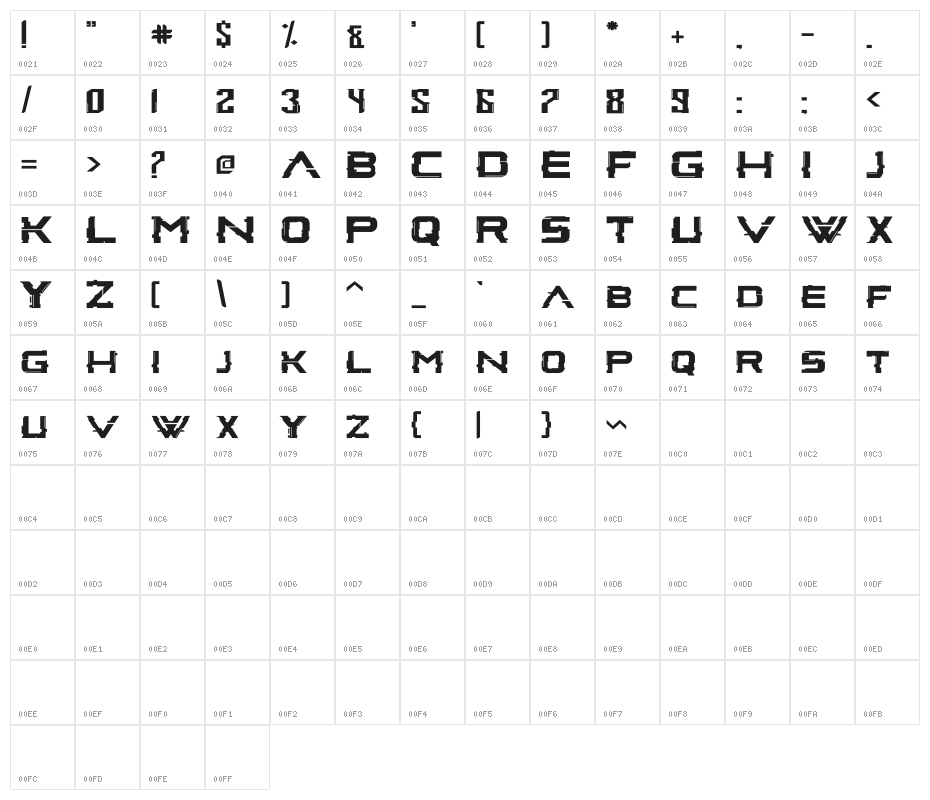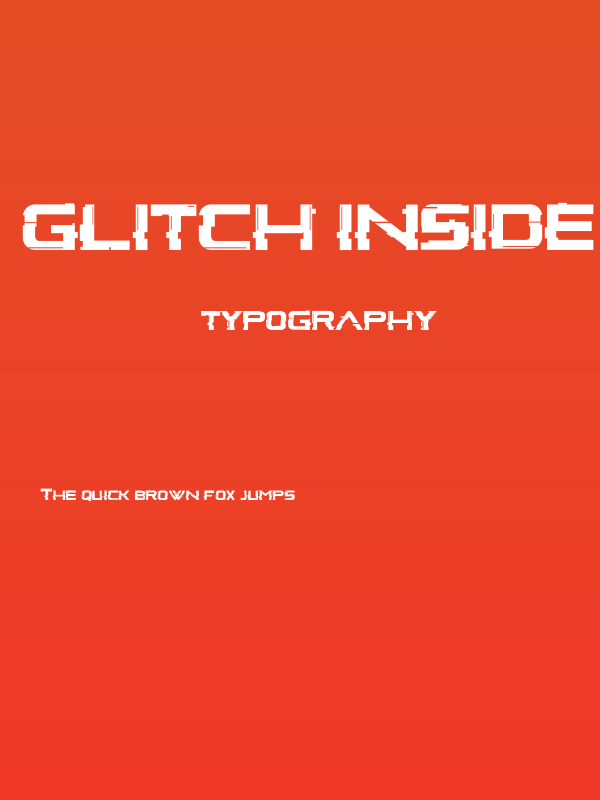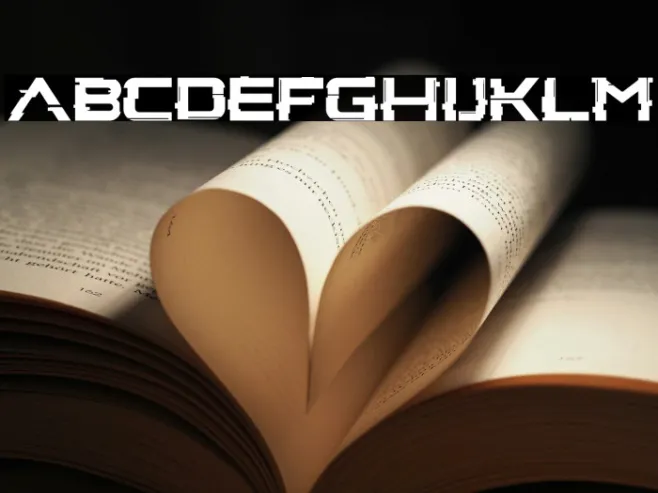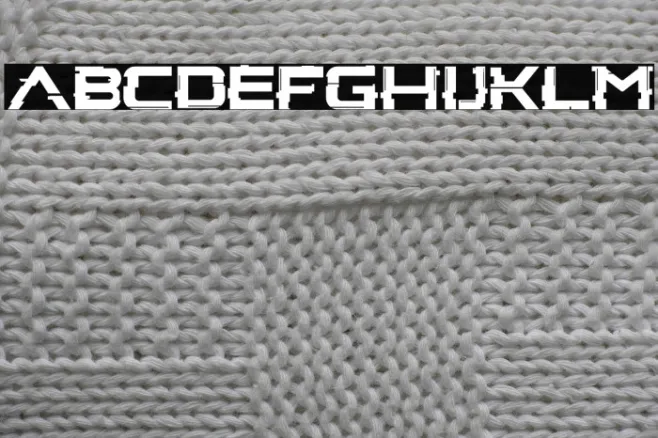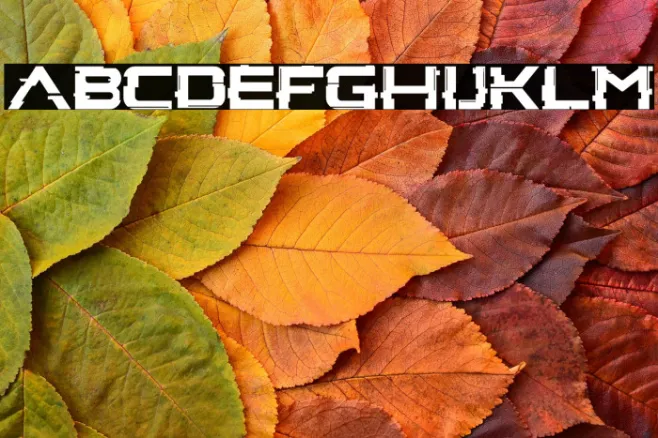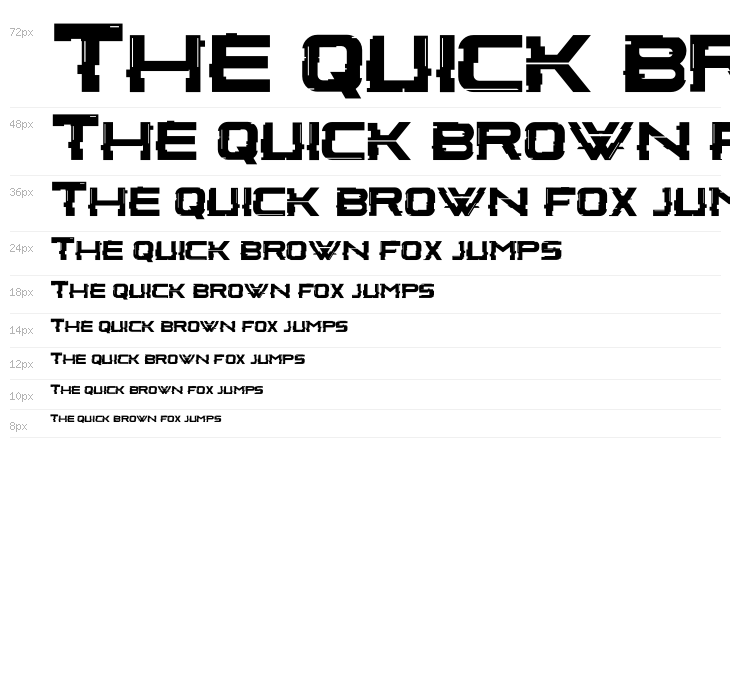
Glitch Inside Font
Glitch Inside Description
This font features a unique, glitch-inspired design that gives it a digital, futuristic appearance. The characters are bold and angular, with fragmented and distorted elements that mimic the look of a digital error or interference. The uppercase and lowercase letters maintain a consistent style, with sharp edges and a blocky structure. Numbers and special characters follow the same aesthetic, making the font cohesive and visually striking. The overall design is both modern and edgy, suitable for projects that require a tech-savvy or avant-garde look.
| Overall Style | Modern, Futuristic |
| Proposed Projects | Ideal for digital art, tech branding, video game design, and sci-fi themed projects. |